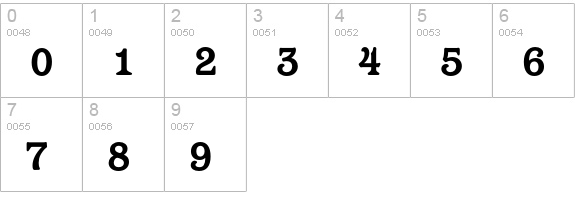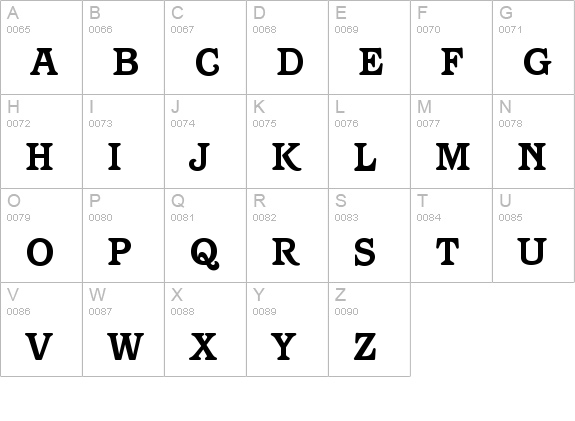
BarcelonaEF-Bold is a strong, high-contrast variant in the BarcelonaEF typeface family \xE2\x80\x94 well suited to headlines, attention-grabbing titles, and strong calls-to-action.
BarcelonaEF-Bold is a modern and sleek font that exudes elegance and sophistication. Its bold and striking design makes it perfect for creating eye-catching headlines, titles, and branding materials. The font carries a sense of strength and confidence, making it ideal for projects that require a bold statement. What sets BarcelonaEF-Bold apart is that it is not only visually appealing but also versatile and easy to read. Its clean lines and sharp edges ensure readability across various platforms and sizes. Whether used for print or digital media, BarcelonaEF-Bold delivers a professional and polished look. And the best part? BarcelonaEF-Bold is available for free download at FontsMarket.com. Now you can elevate your designs with this exceptional font without any cost. Don't miss out on this opportunity to enhance your projects with BarcelonaEF-Bold's bold and contemporary style. Download it now and see the difference it can make in your designs!